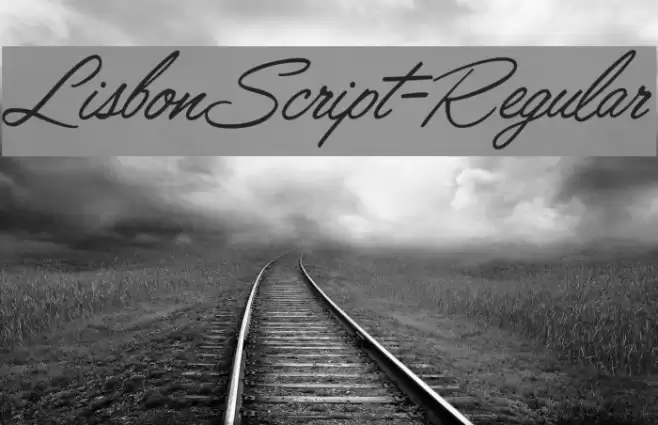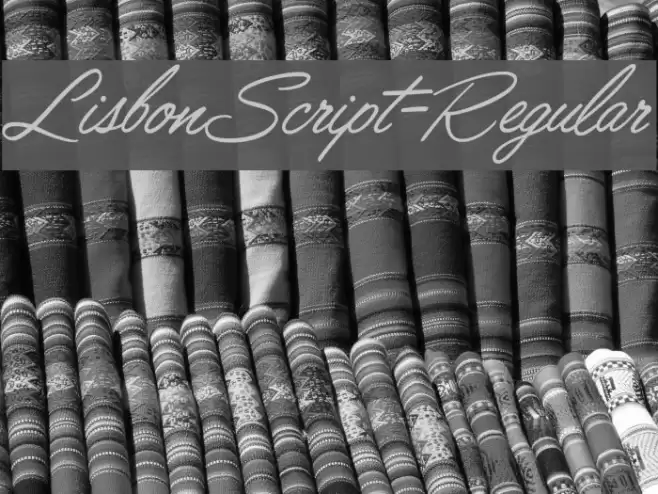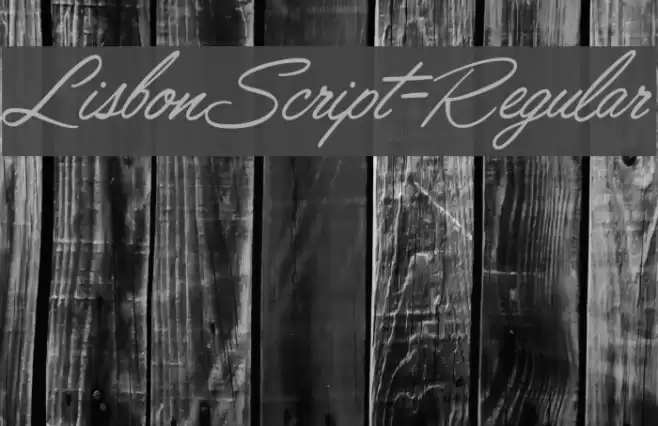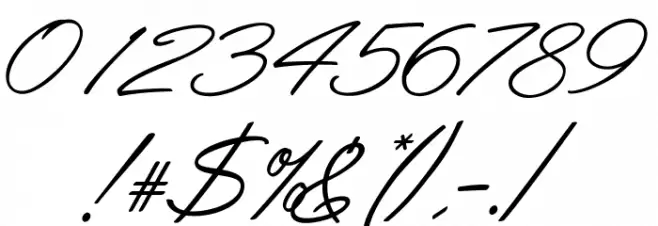
LisbonScript-Regular Font
LisbonScript-Regular Description
This elegant script font features a flowing, cursive style that mimics the fluidity of handwritten calligraphy. The uppercase letters are slightly slanted, with graceful loops and swashes that add a touch of sophistication. The lowercase characters maintain a consistent rhythm, with smooth connections between letters, enhancing readability while preserving the script's artistic flair. Numbers and special characters are designed to complement the overall aesthetic, making them suitable for various decorative purposes. The font's delicate strokes and balanced proportions make it ideal for projects that require a personal, elegant touch.
A flowing, cursive script font with elegant, handwritten calligraphy style from Uncategorized fonts.
- Overall Style: Elegant, Decorative